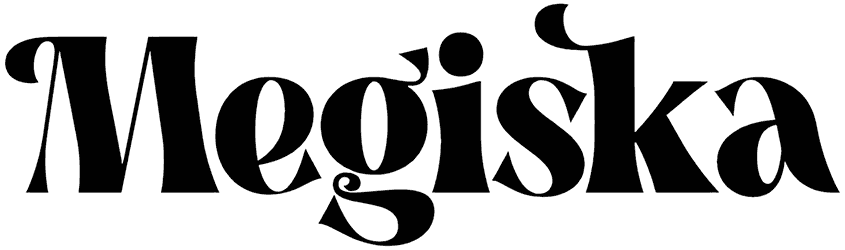
Megiska Font
Introducing Megiska, a serif font with a retro, thick, and simple display, making it more legible. It includes two versions, each has a full set of characters that offer a reliable and authentic feel to your work and elevate it to the highest possible. This font is very suitable for fashion magazines, movie posters, branding, logotype designs, and advertisements.